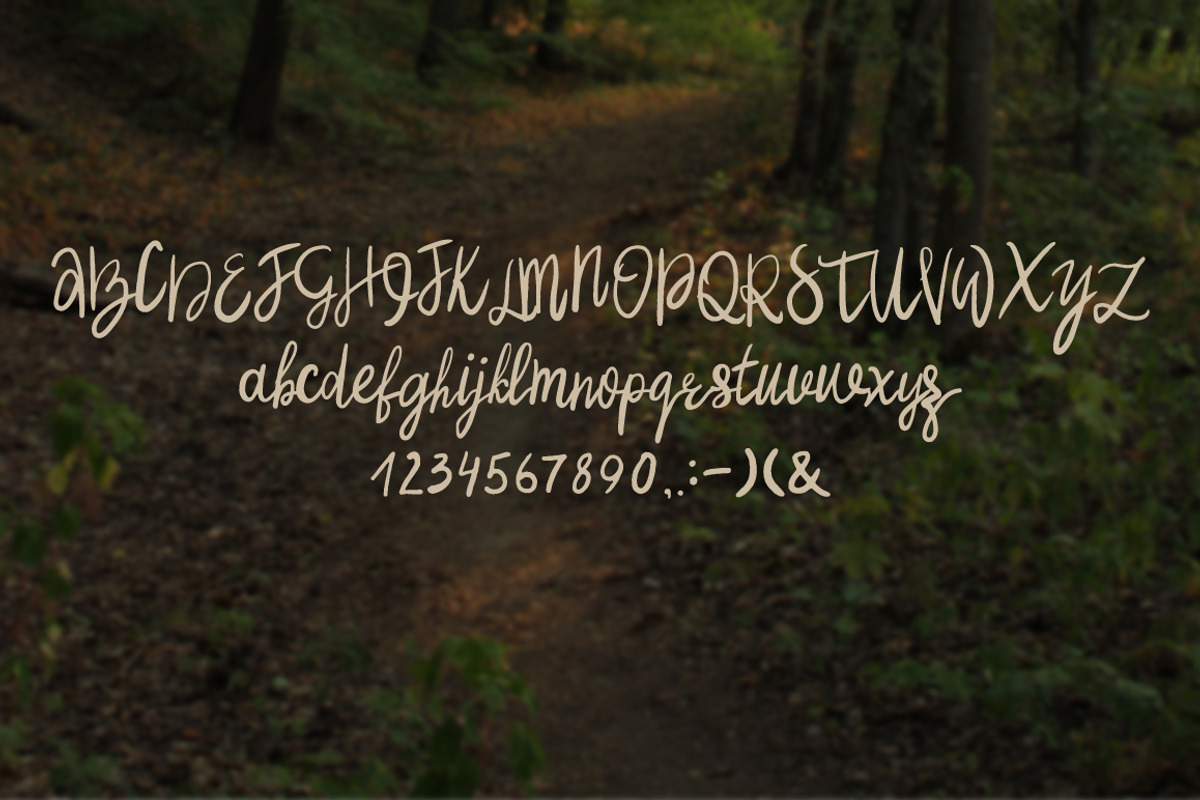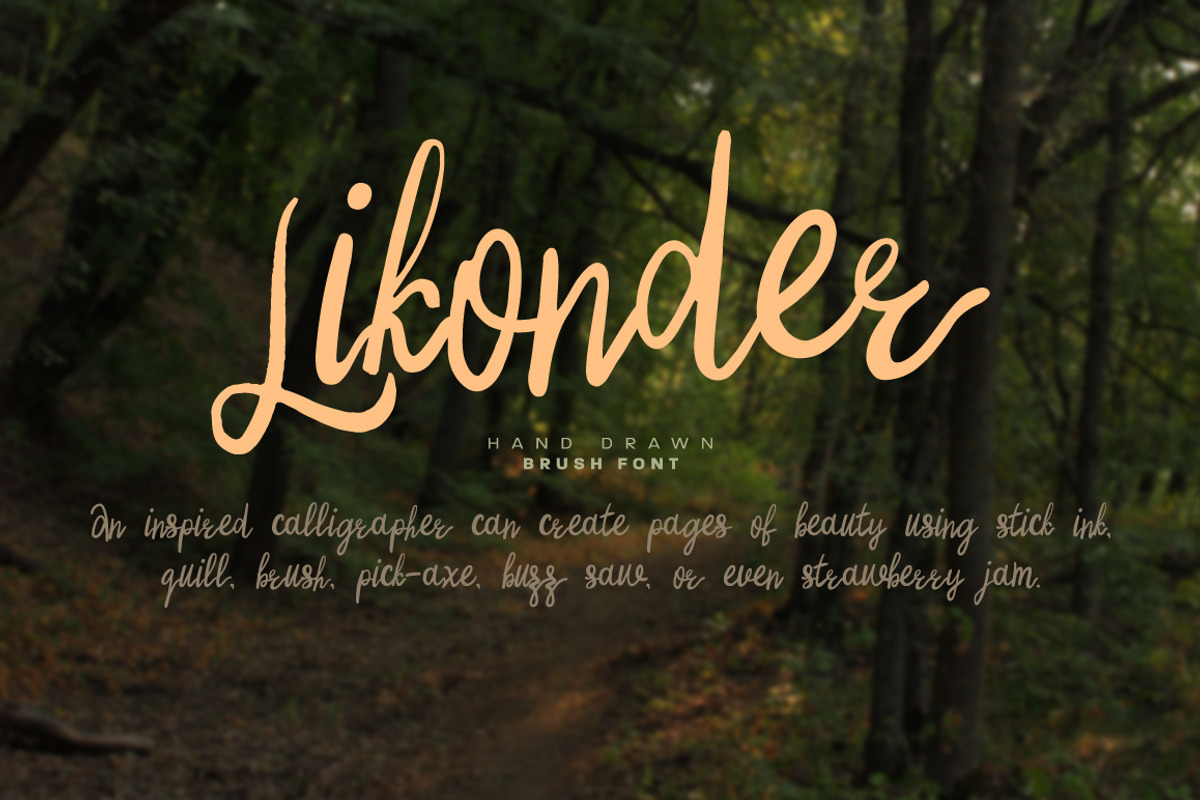
Likonder font
Likonder font by Anna Ozerina is a font selected for branding, posters, packaging, typography.
Why Likonder font is worth a look
Likonder font by Anna Ozerina fits naturally into Branding, posters, packaging, typography.